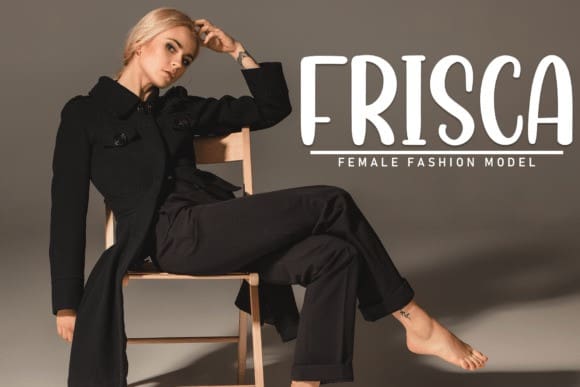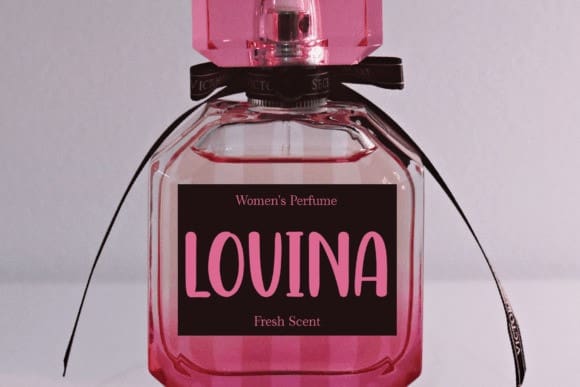
Cute Puppy Font
Cute Puppy Font is a sweet and friendly handwritten font. Fresh and cute, this font is ideal for writing wedding invitations, cards, or any other design that might need a fun touch!